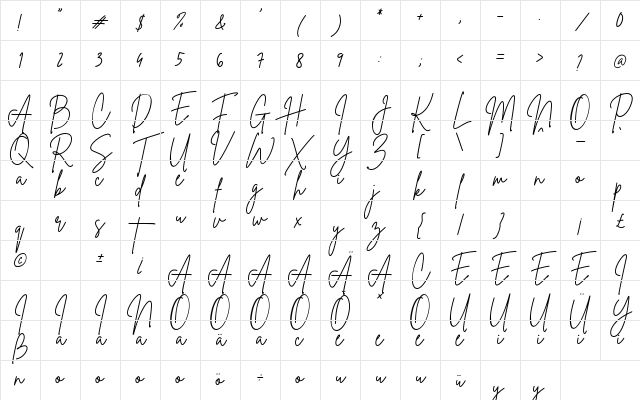
Brittany Signature Regular
Foundry: Creatype Studio Co.
Designer: Rian Rahardi
Design Context for Brittany Signature
Brittany Signature is a composed and adaptable typeface that performs quietly and consistently across a wide range of design contexts.